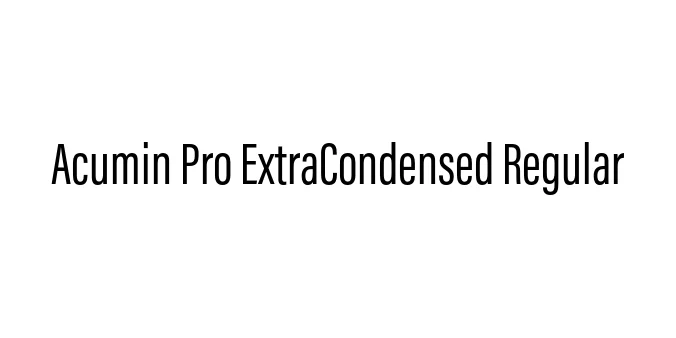
Acumin Pro ExtraCondensed Regular
Designed by Robert Slimbach
Acumin Pro ExtraCondensed Regular is a versatile neo-grotesque typeface family designed by Robert Slimbach for Adobe. Released in 2015, the Acumin project was an ambitious effort to create a contemporary masterwork that offers a neutral yet professional aesthetic across an enormous range of widths and weights. This particular ExtraCondensed weight is engineered for extreme efficiency, allowing designers to pack text into narrow columns without sacrificing the clean, geometric clarity the typeface is known for.
The architecture of Acumin Pro is built upon the tradition of classic Swiss sans-serifs but updated for the digital age. Its lack of decorative elements and precise balance makes it an ideal choice for complex information design and high-density layouts. As part of a 184-style system, the ExtraCondensed Regular variant ensures consistency in branding and editorial projects where horizontal space is at a premium, making it a favorite for modern UI/UX designers and publishers.
Acumin Pro ExtraCondensed Regular Best Uses
Perfect for high-impact headlines and subheadings in magazines or newspapers where horizontal space is limited.
Ideal for navigation menus, sidebars, and dense information dashboards.
Corporate identities that require a clean, neutral, and highly professional appearance.
Effective for digital banners and promotional posters with large amounts of copy.